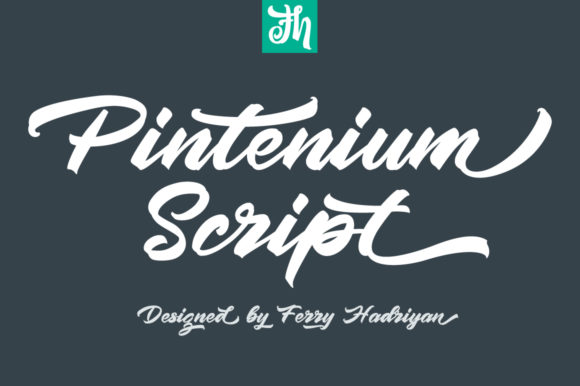
Prepare yourself to be captivated by Pintenium, a script font that exudes charm and individuality. This remarkable creation by feydesign is meticulously crafted with a multitude of alternatives, empowering you to unleash your creativity and make every design project distinctively yours.
Pintenium is not merely a collection of characters; it's an artistic journey waiting to be explored. Its graceful strokes, reminiscent of a dancer's movements, add a touch of elegance and sophistication to any design. Whether you're creating logos, invitations, social media graphics, or any other visual masterpiece, Pintenium promises to elevate your work effortlessly.
With its diverse selection of alternates, Pintenium grants you the freedom to experiment and express your unique style. Each alternate character is like a new brushstroke, allowing you to paint your words with vibrant colors and textures. Whether you prefer a classic or modern aesthetic, playful or serious tone, Pintenium adapts seamlessly to your vision.
Unlock your creative potential with Pintenium. Let your imagination soar and watch as your designs transform into captivating works of art. This remarkable font will add a dash of magic to your projects and leave a lasting impression on your audience. Embrace the beauty of Pintenium and embark on a creative journey that knows no bounds.